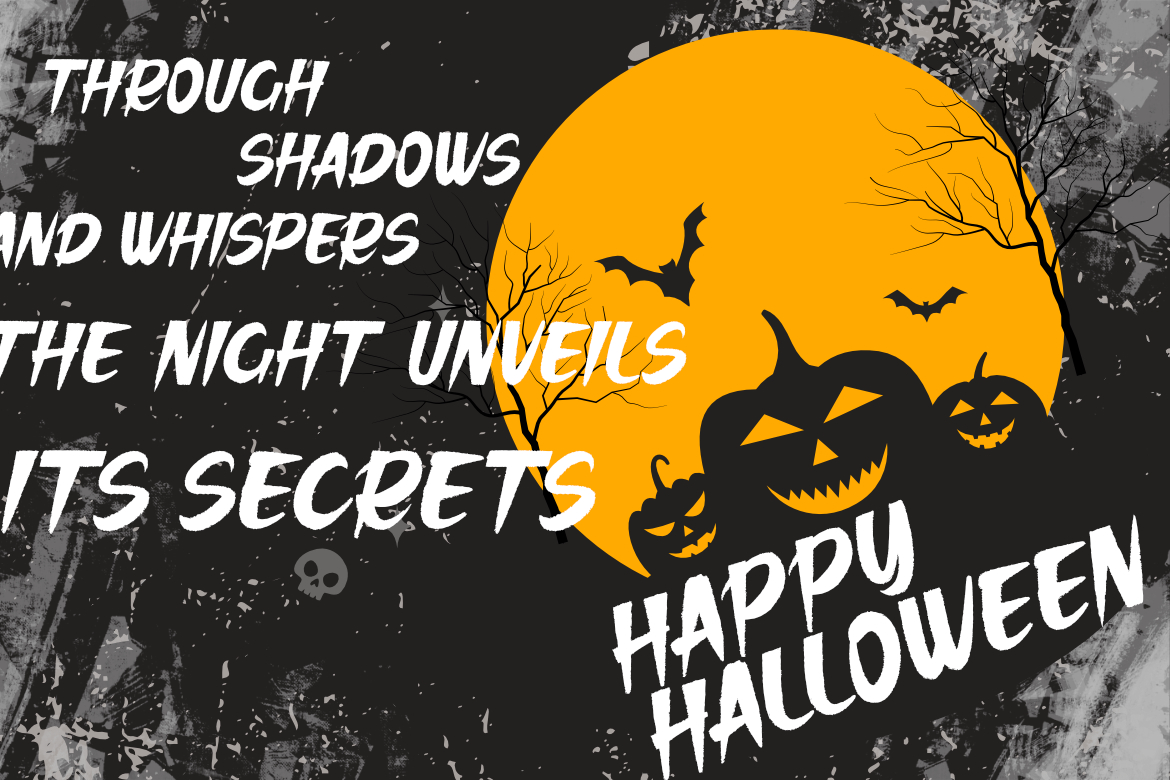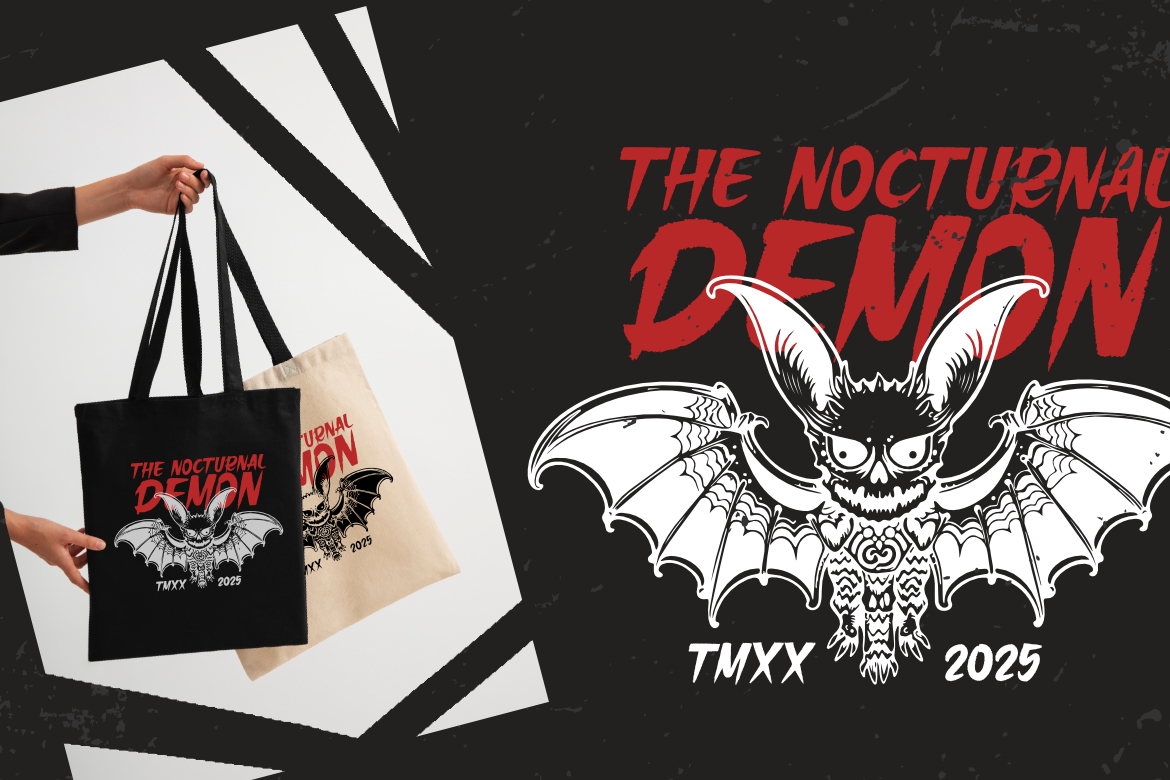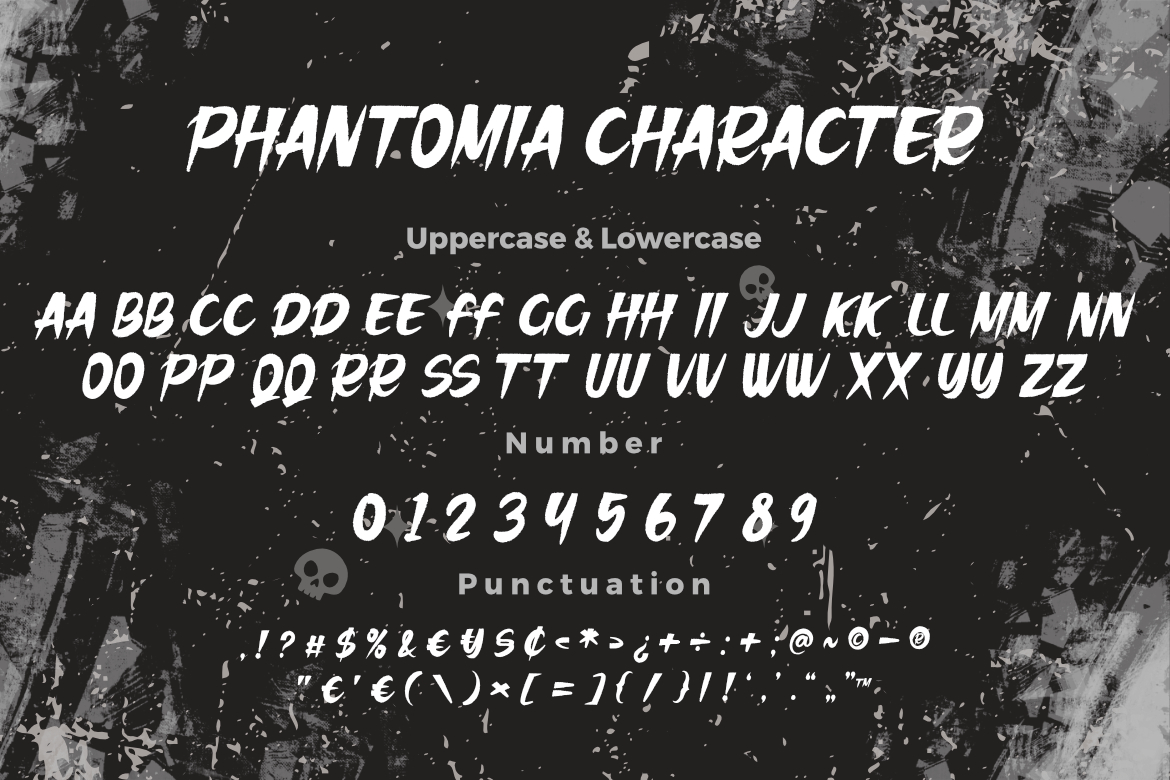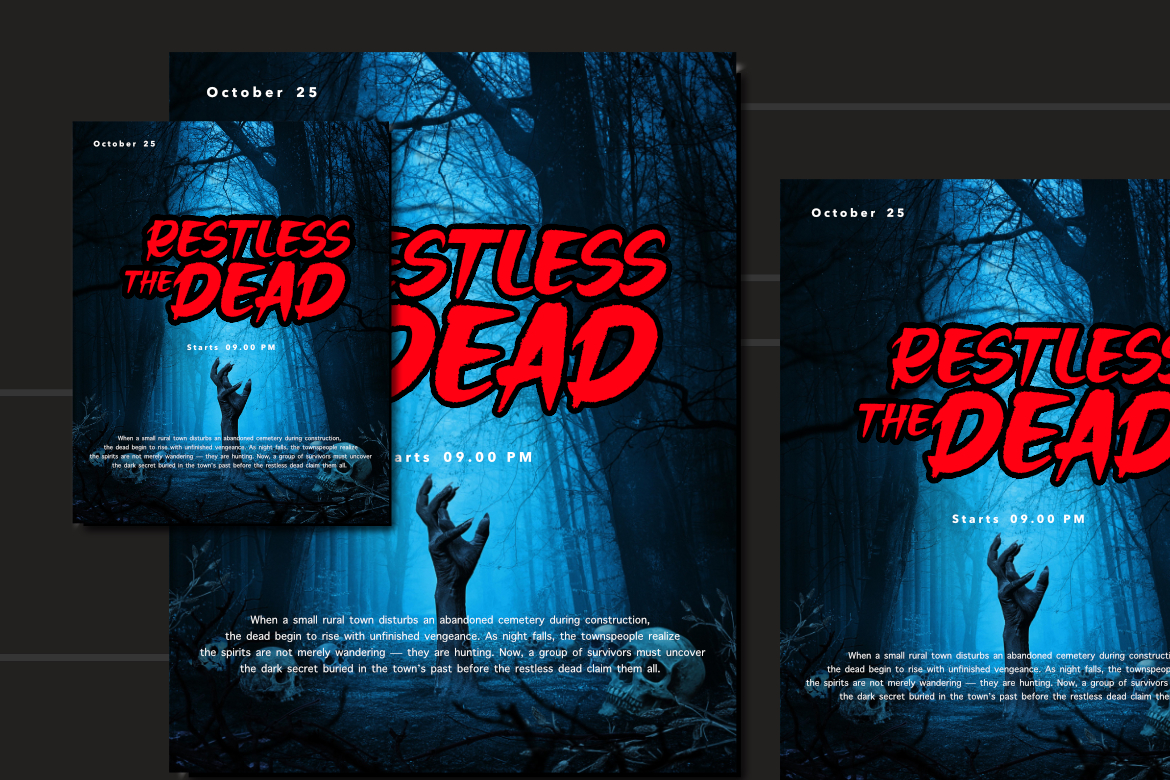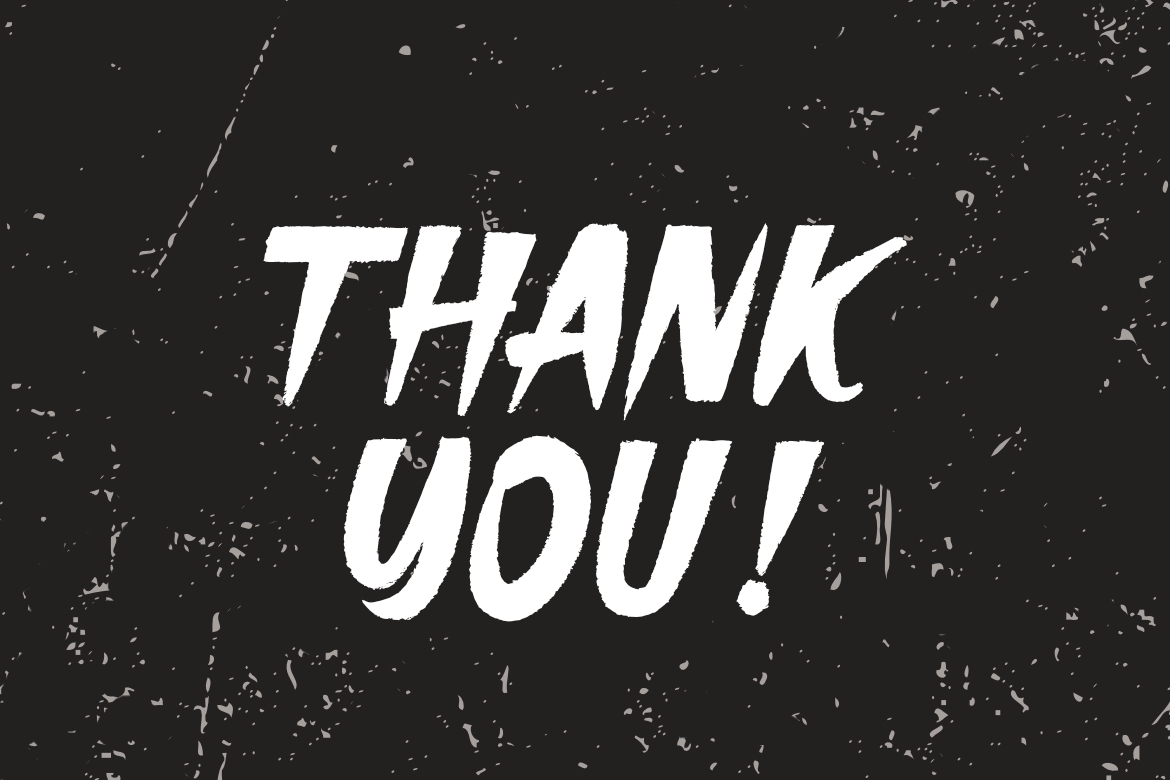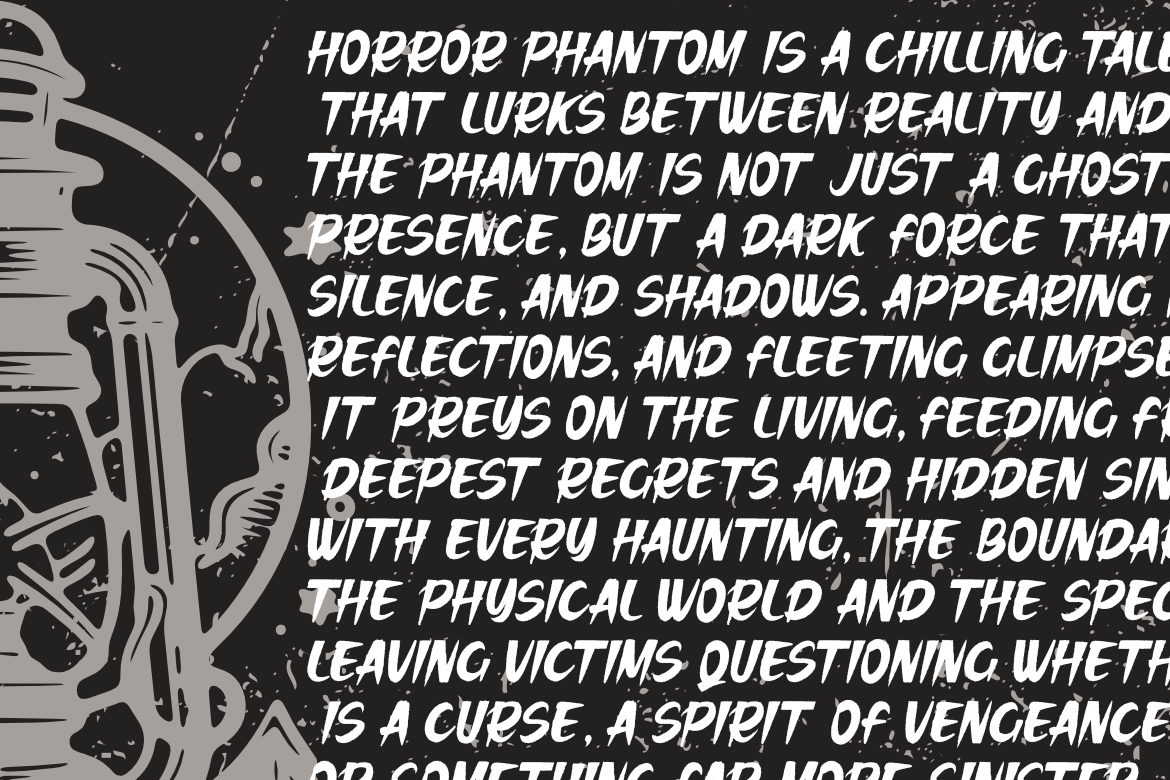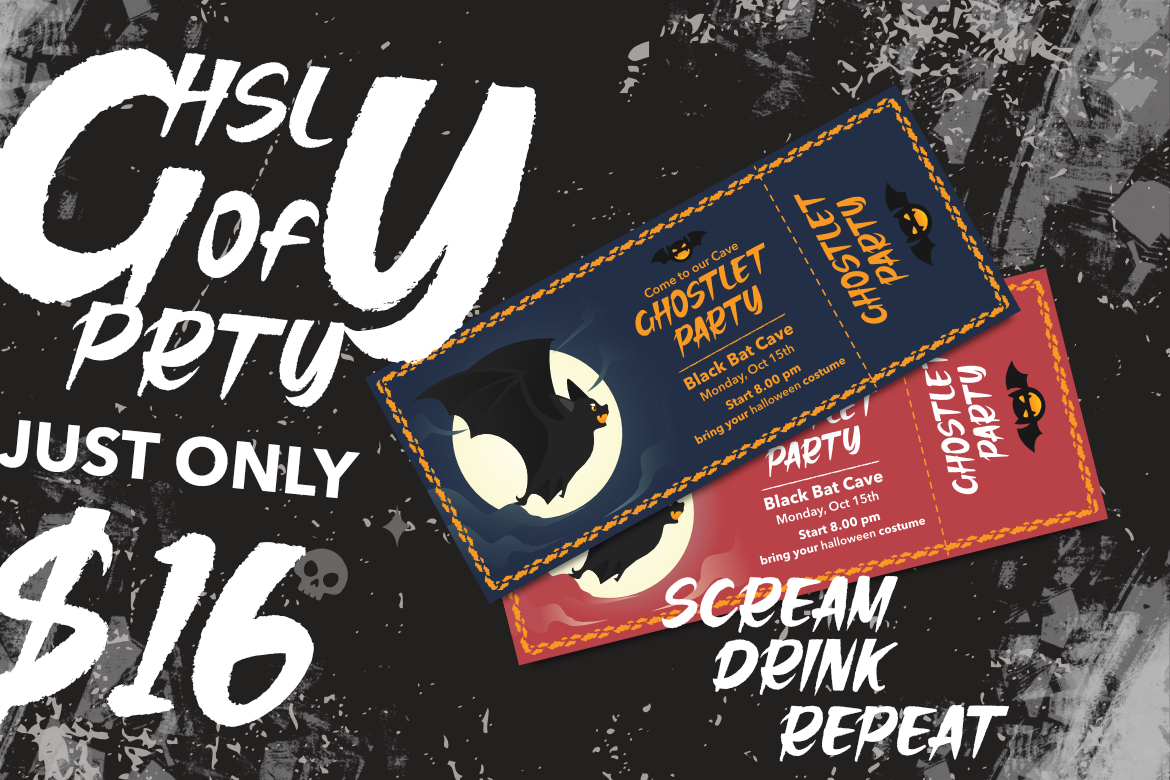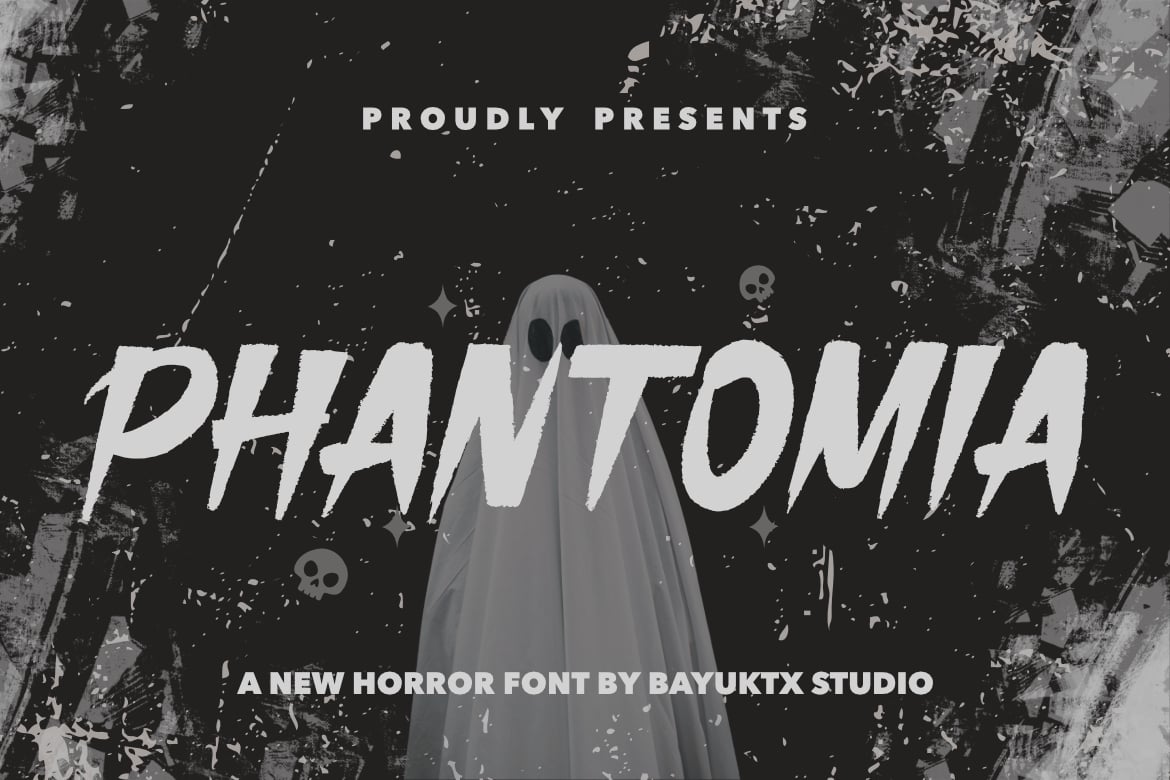
Phantomia a New Horror Font
**Phantomia Horror Font**
Phantomia Horror Font is a haunting and dramatic typeface that captures the essence of fear, mystery, and the supernatural. Its sharp edges, eerie curves, and distressed details create a chilling atmosphere, making it the perfect choice for designs that aim to evoke terror and suspense.
This font is crafted to deliver a sinister yet artistic feel—ideal for horror-themed projects that demand intensity and unforgettable visual impact. With its ghostly style and bold presence, Phantomia Horror Font brings a dark, cinematic quality to any creative work.
**Key Features :**
* Uppercase & Lowercase
* Numerals & Punctuation
**Suitable For :**
* Horror Movie Posters & Titles
* Halloween Event Promotions
* Book Covers & Magazines
* Labels & Packaging
* Social Media Graphics
* Poster & Flyers
* Dark-Themed Branding
With Phantomia Horror Font, your designs will embody a sinister energy, radiating mystery, fear, and a chilling atmosphere that captivates every viewer.